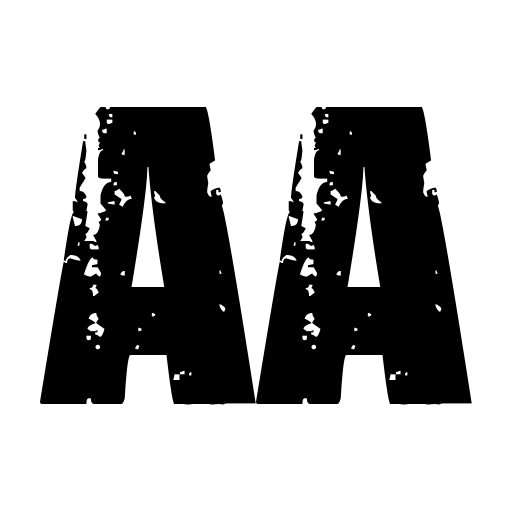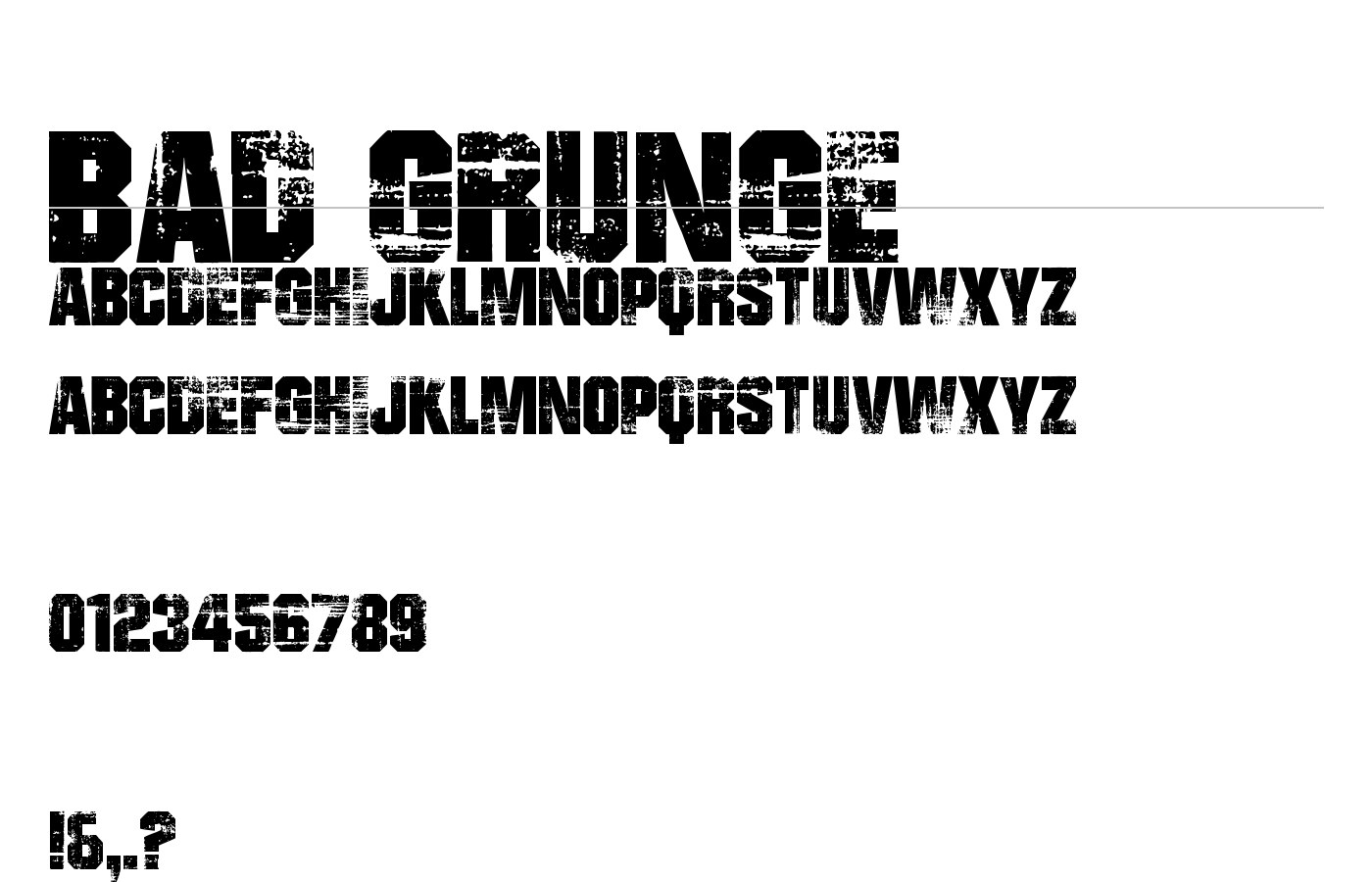
BAD GRUNGE is a bold, condensed sans-serif font featuring a distressed, textured design that evokes a gritty, raw aesthetic. Its high-contrast rough edges and worn-out appearance make it ideal for creating impactful headlines and striking visuals in edgy, urban, or rebellious-themed projects. This font works best in posters, logos, and branding where a strong, gritty mood is desired.
BAD GRUNGE Font
About BAD GRUNGE Font